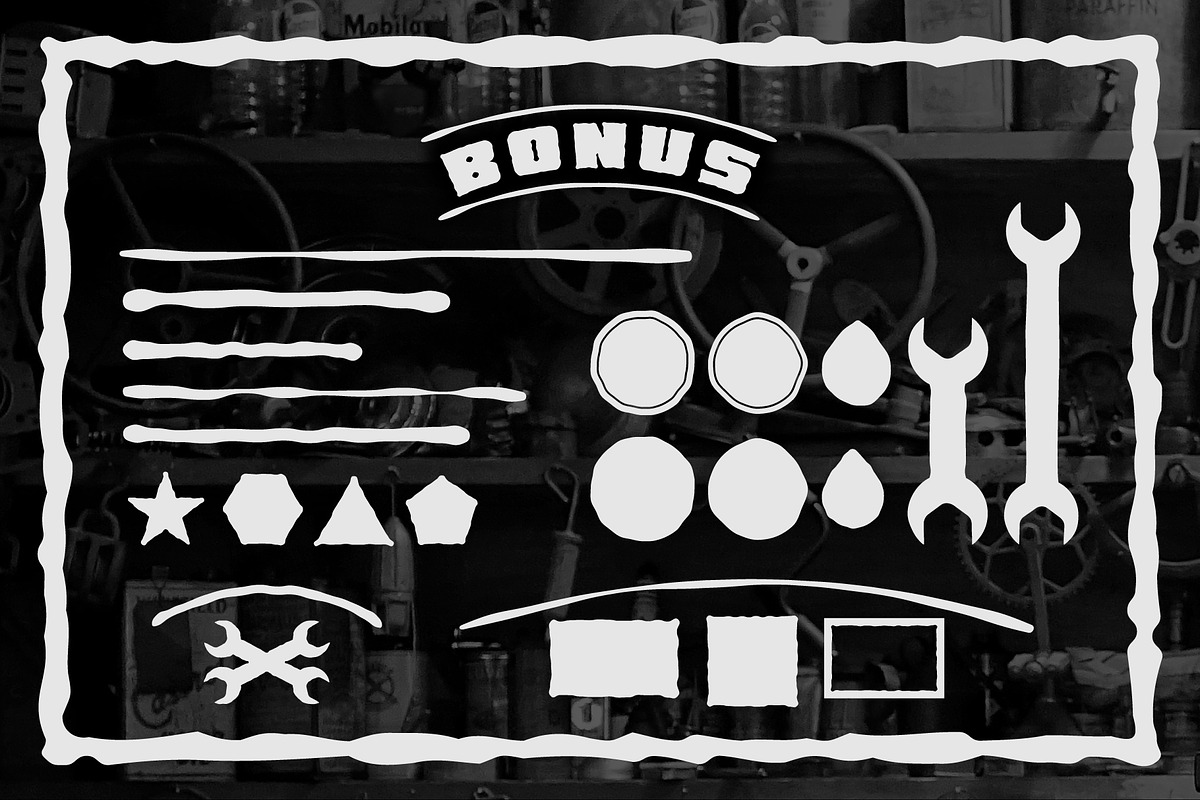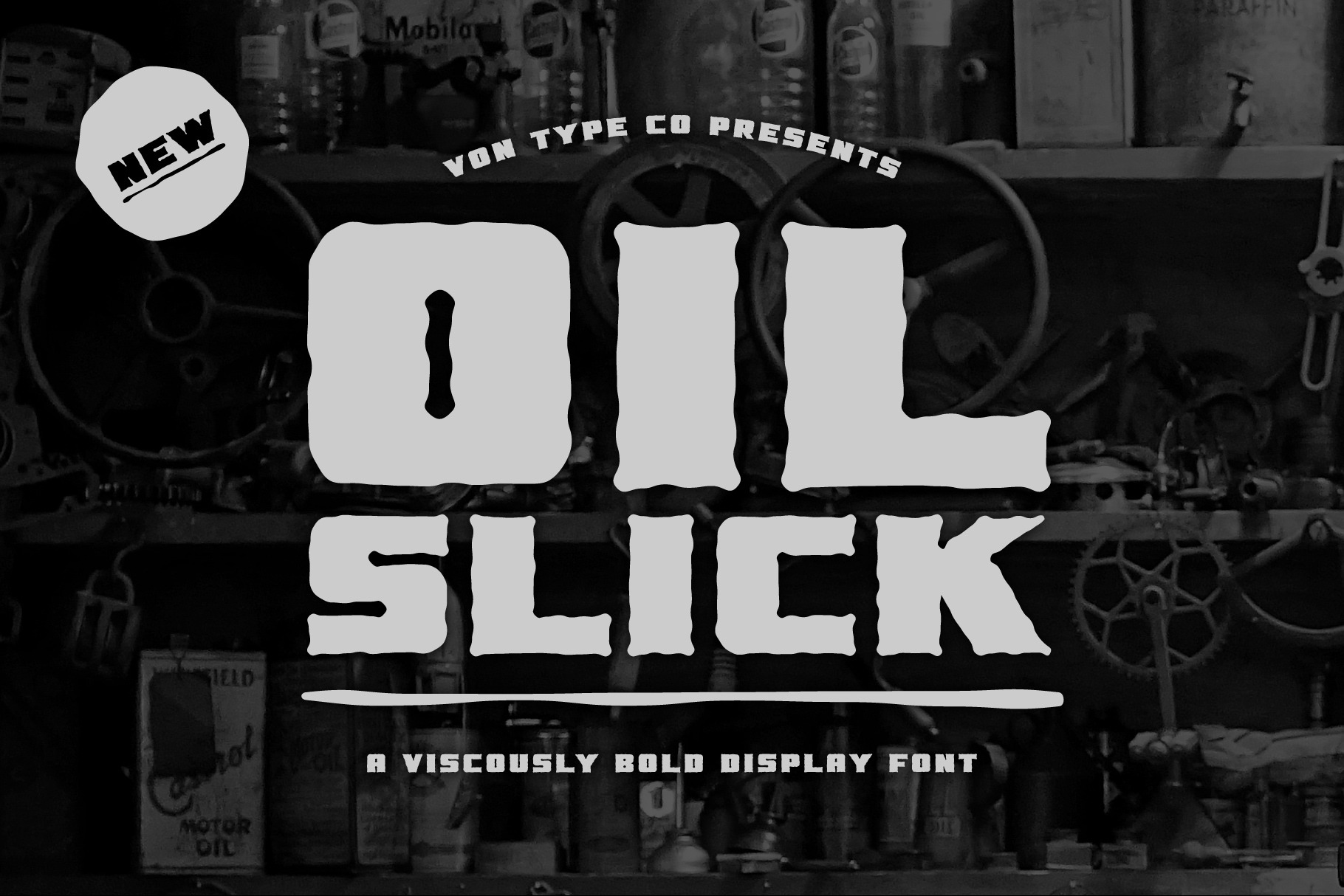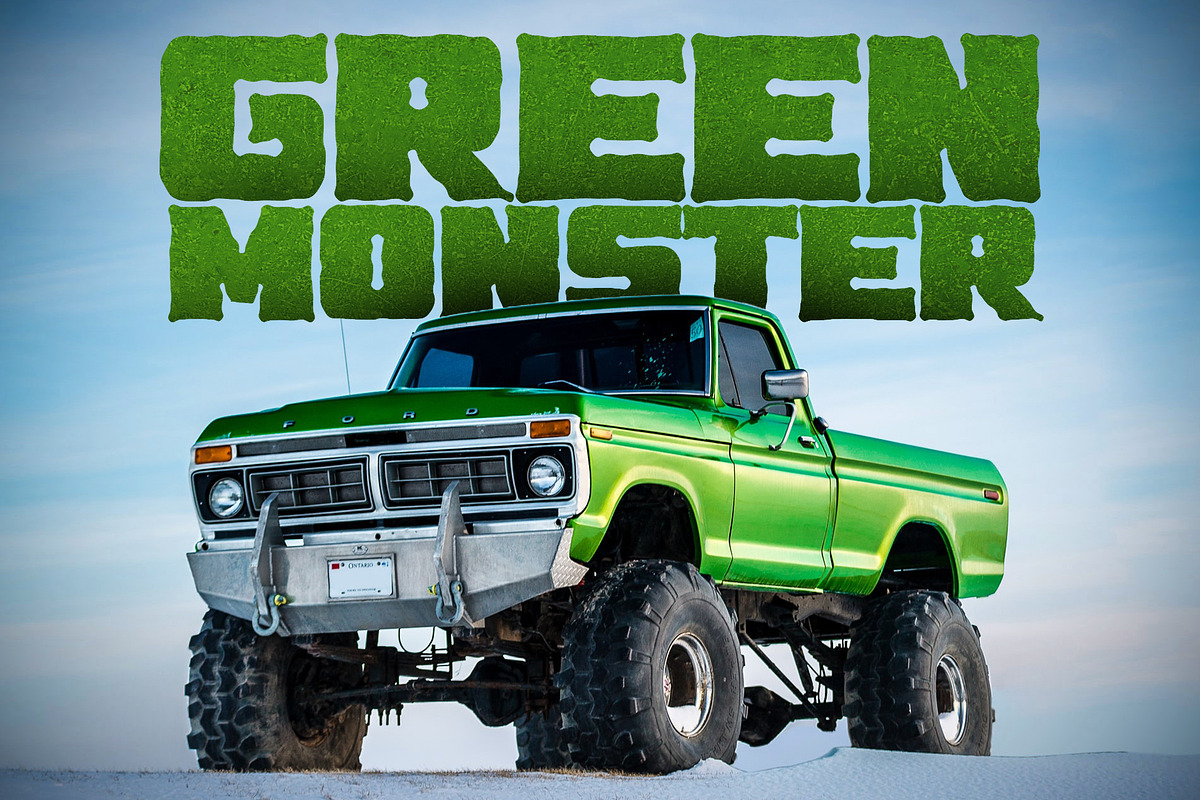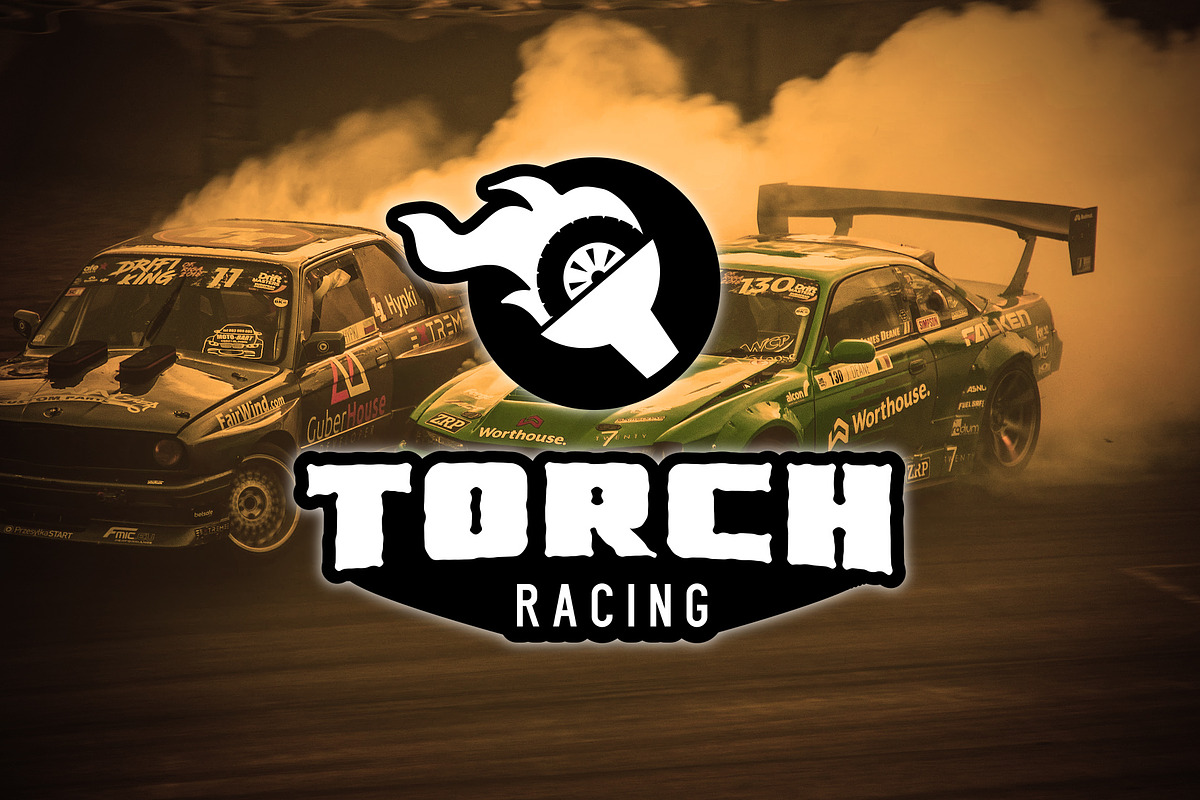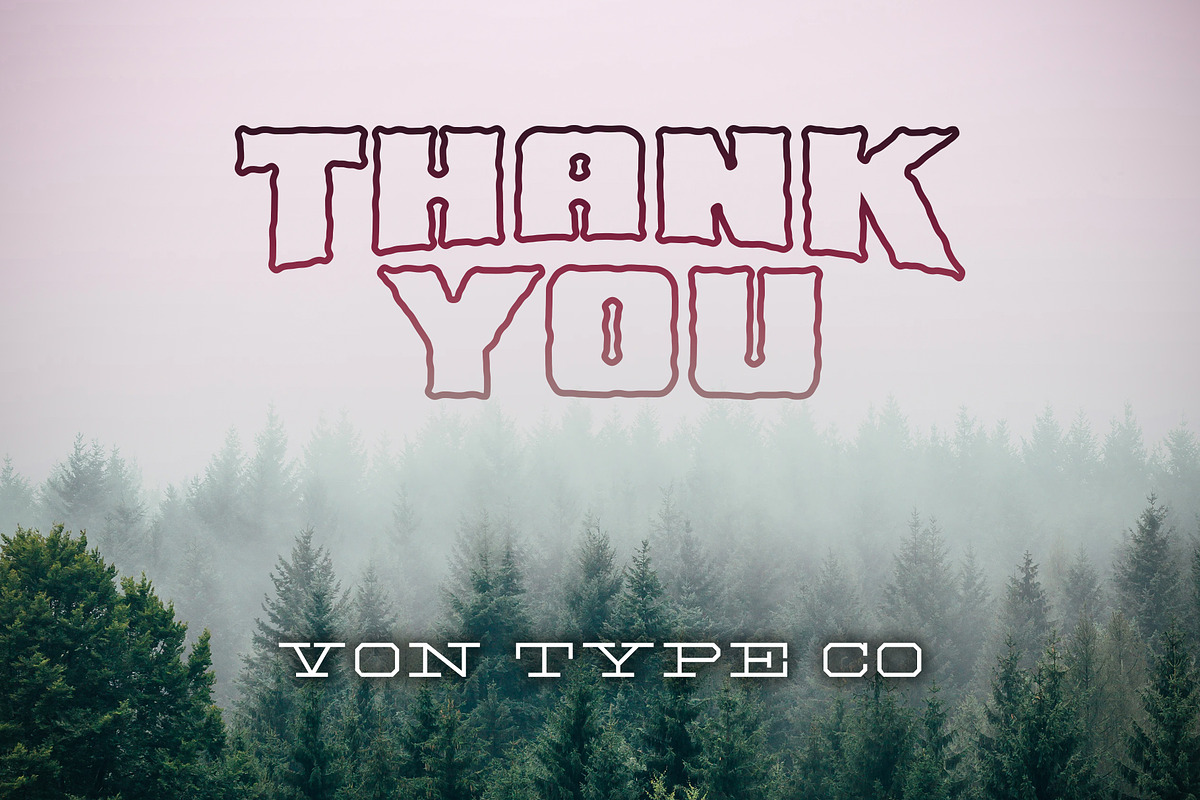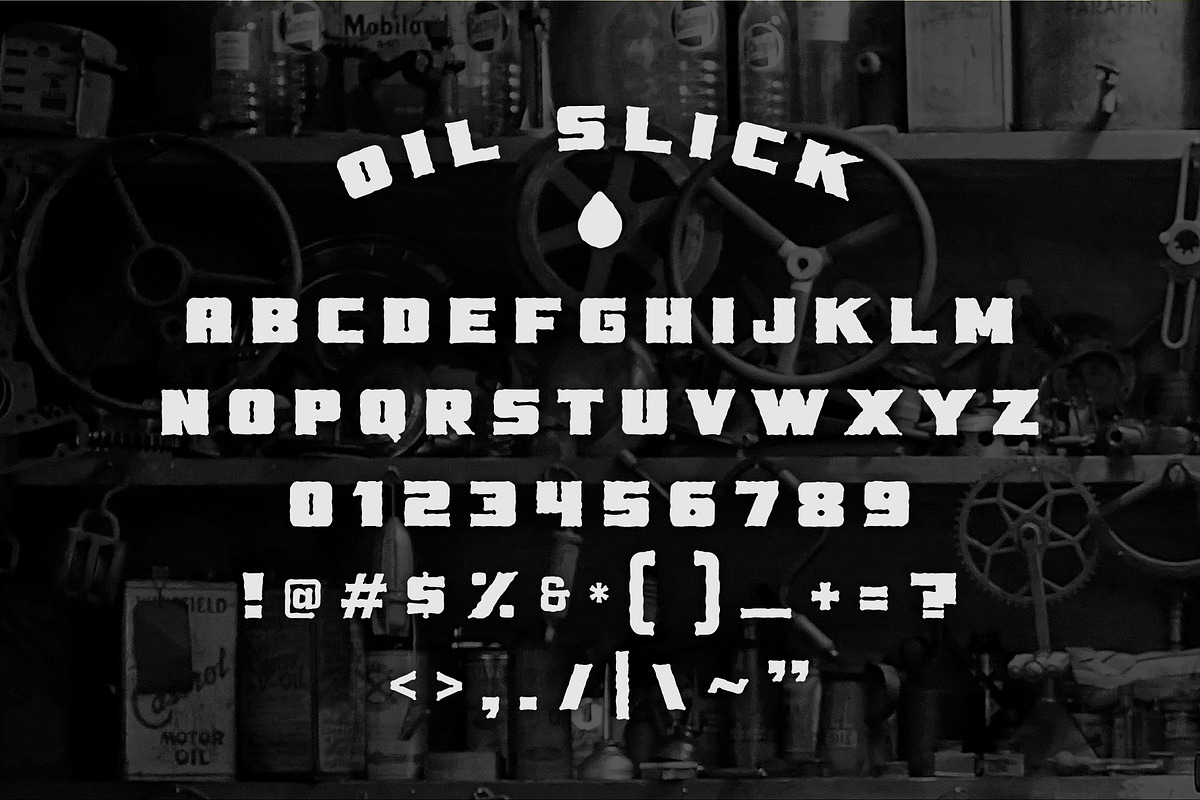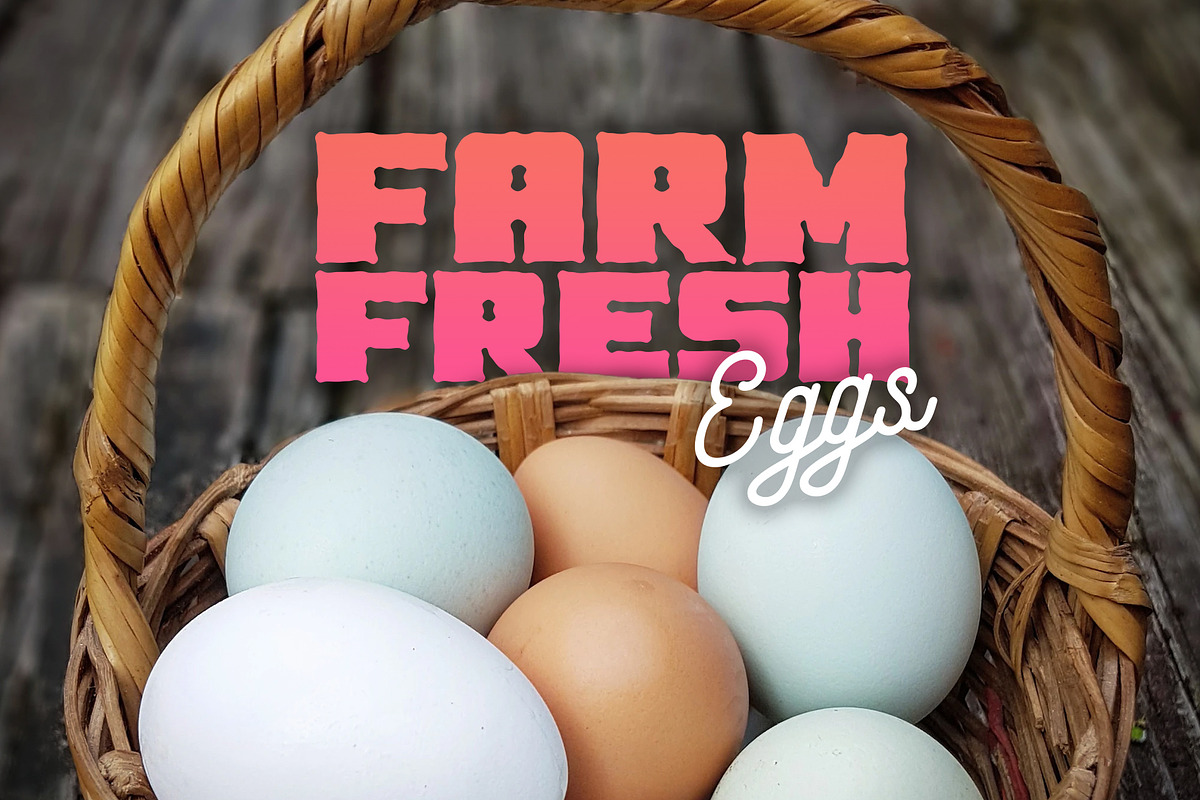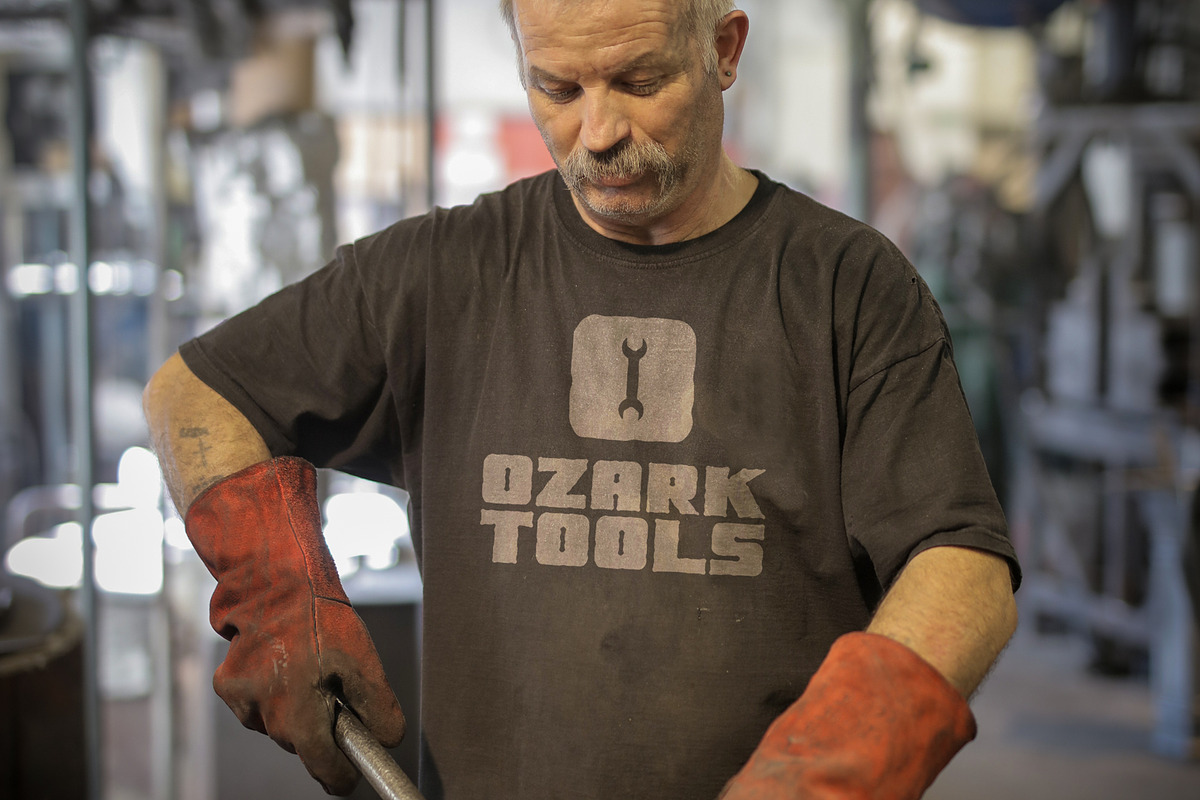
Oil Slick Font + Bonus Elements
Oil Slick is a bold all-caps display font packing a handmade powerful punch. Oil Slick's unique industrial meets handmade esthetic lets it feel strong and mechanical yet handmade and organic depending on the environment. Perfectly tailored for headlines, logos, and posters.
Oil Slick features all caps, punctuation, and numerals.
BONUS: Over 25 vector elements that pair perfectly with Oil Slick.